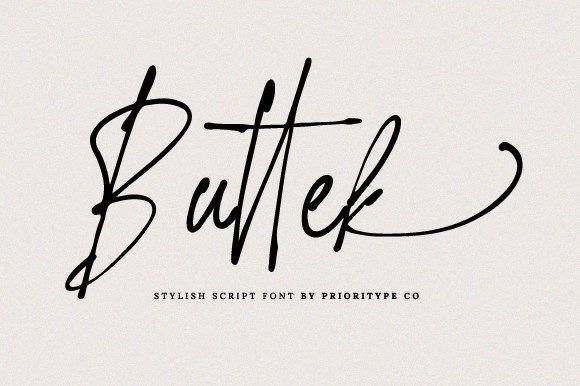
Unleash the charm and sophistication of your designs with Buttek Font, a captivating script font family designed to elevate your creative endeavors. Its delicately crafted characters dance across the page, exuding an air of elegance and grace that will leave a lasting impression on your audience.
Buttek Font is the perfect choice for creating modern logos that exude personality and charm. Its flowing lines and balanced proportions lend themselves effortlessly to crafting distinctive logos that will set your brand apart. Imagine the impact of a logo that reflects the essence of your brand, attracting customers with its unique and stylish appearance.
This versatile font family is not limited to logos; it also shines in a variety of design projects. Whether you're creating wedding invitations, social media graphics, or eye-catching posters, Buttek Font adds a touch of refinement and creativity that elevates your designs to new heights.
Buttek Font's PUA encoding makes it incredibly user-friendly, allowing you to access all of its glyphs and swashes with ease. This opens up endless possibilities for customization, enabling you to create truly unique and personalized designs that reflect your individual style.
Embrace the beauty and elegance of Buttek Font and watch your designs come alive with a modern, sophisticated touch. Its delicate strokes and graceful curves will captivate your audience, leaving them with a lasting impression of your brand's professionalism and creativity.